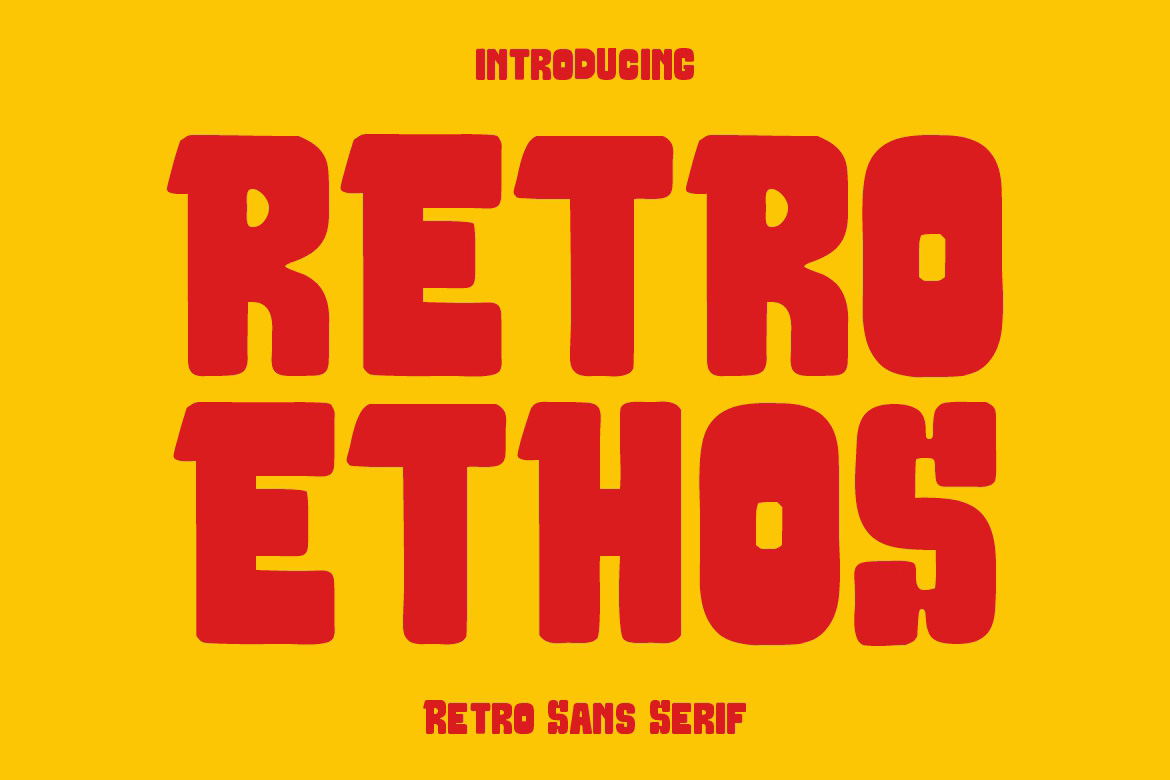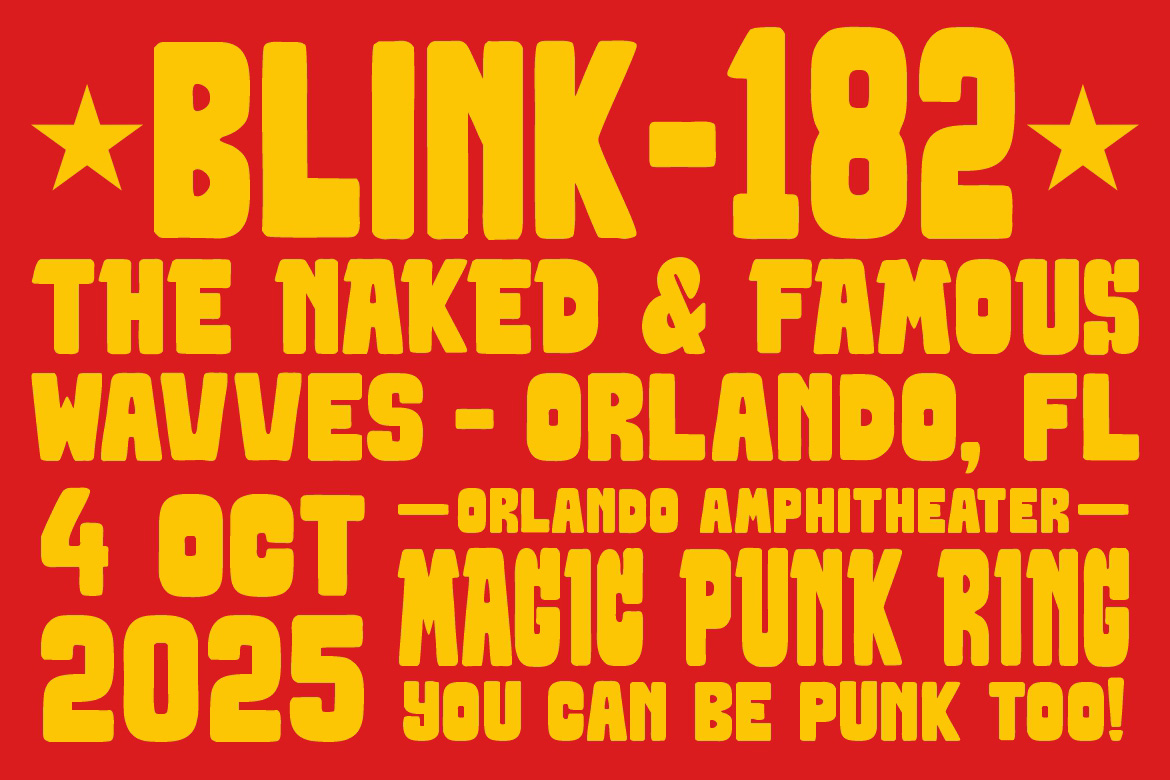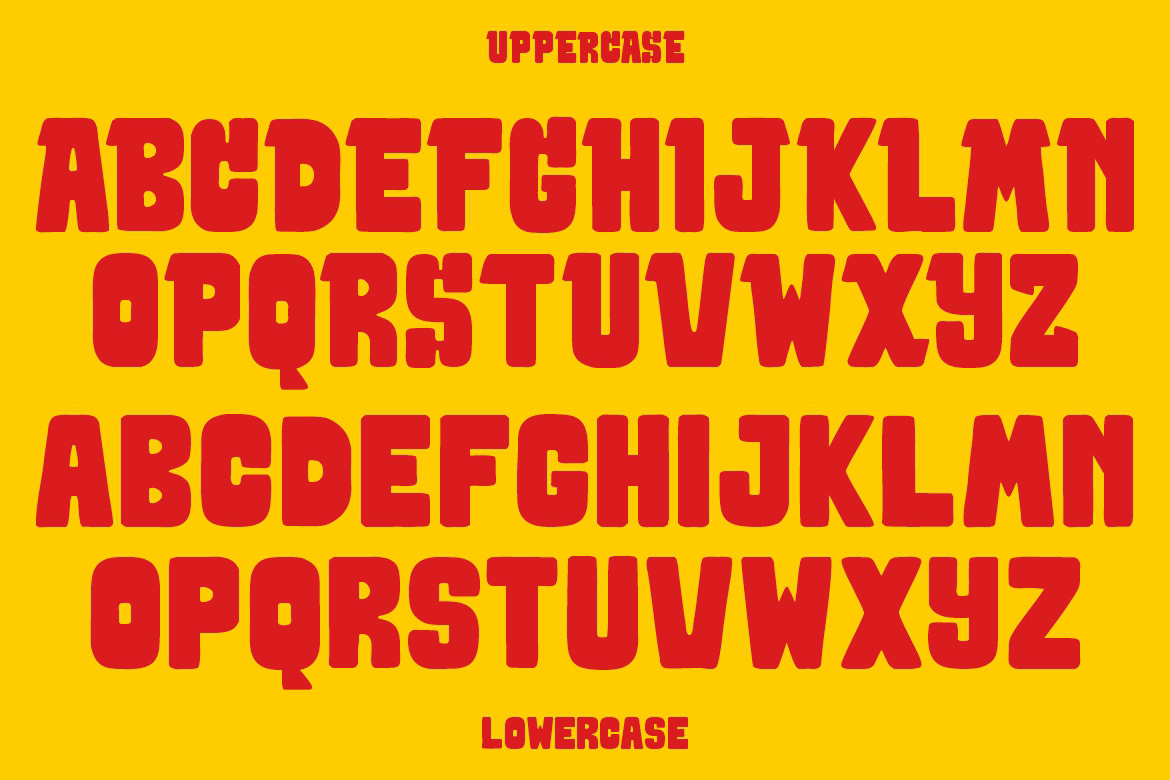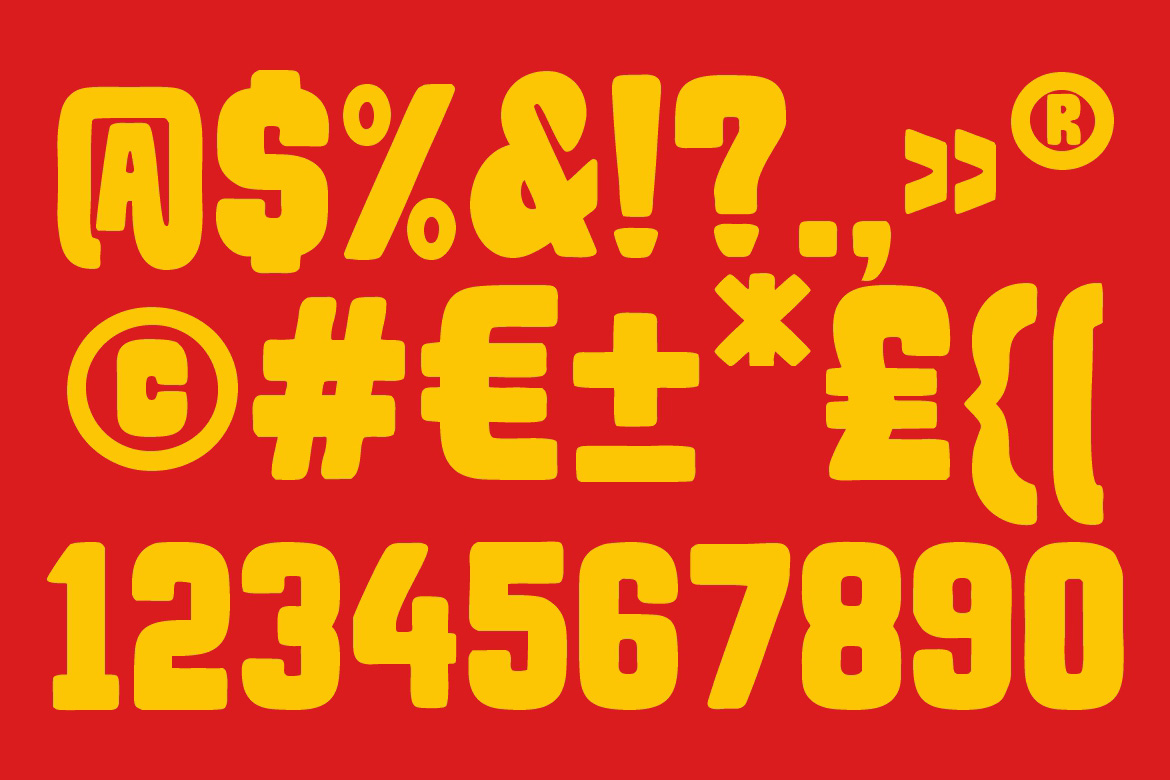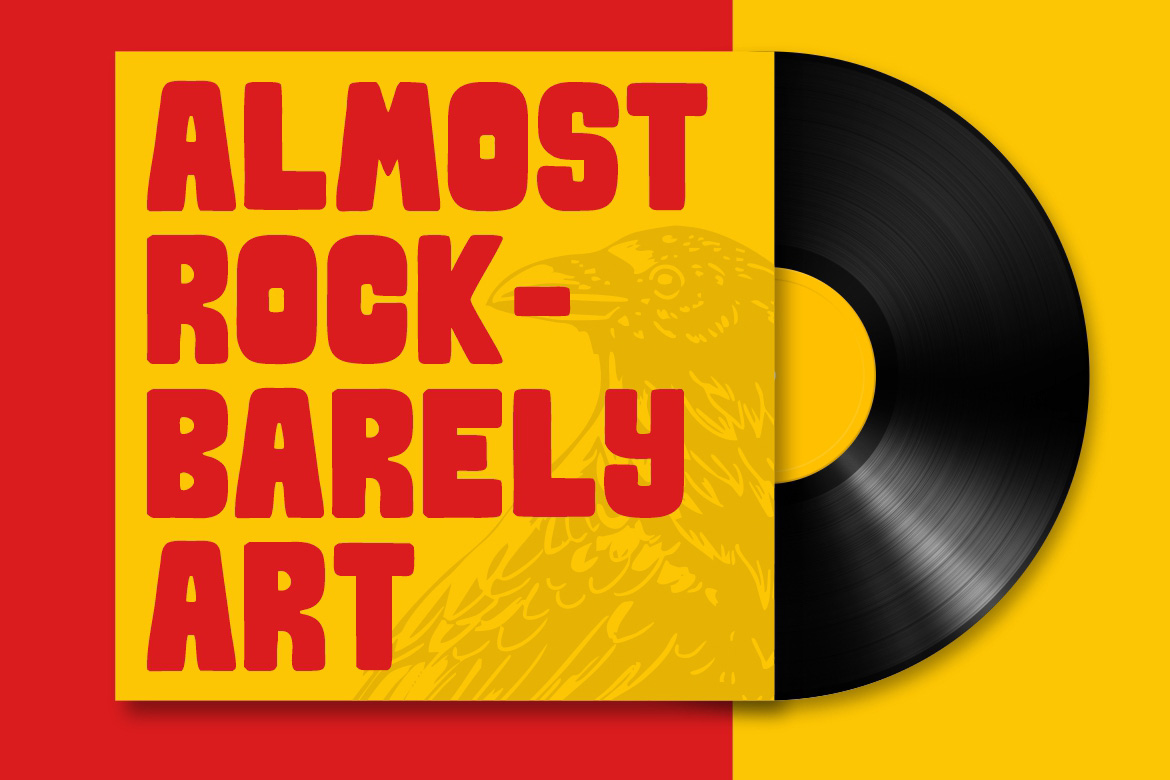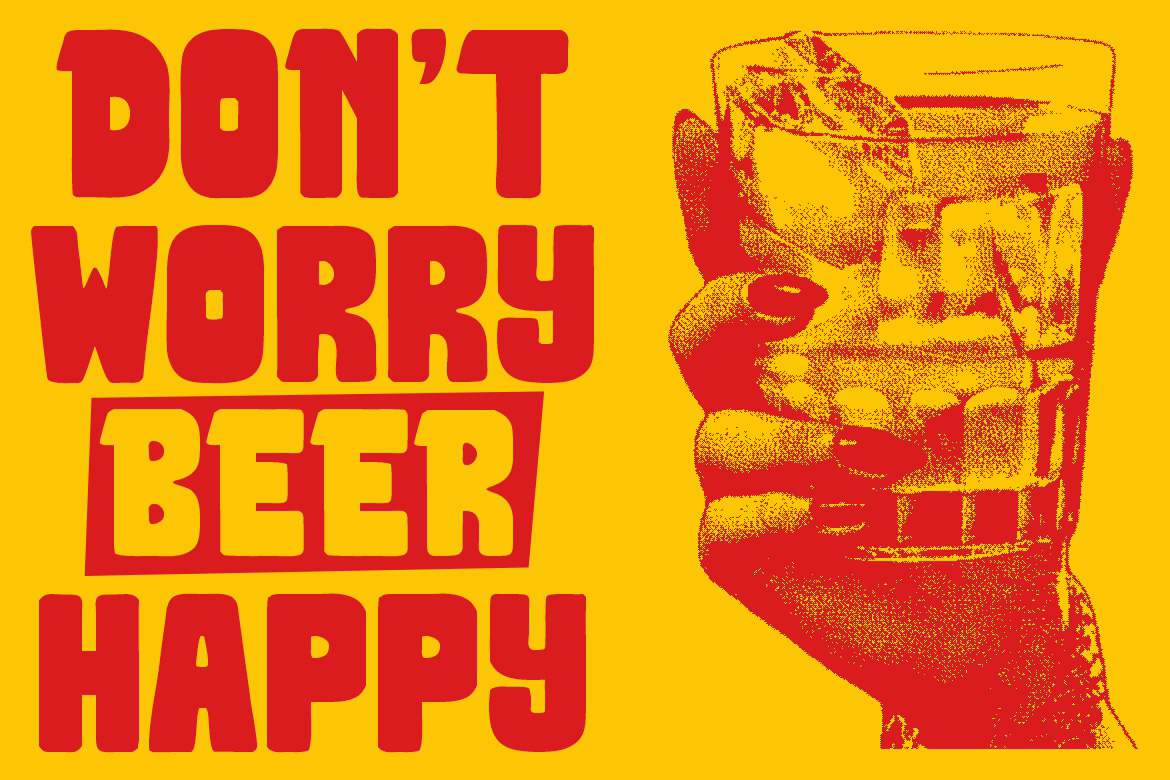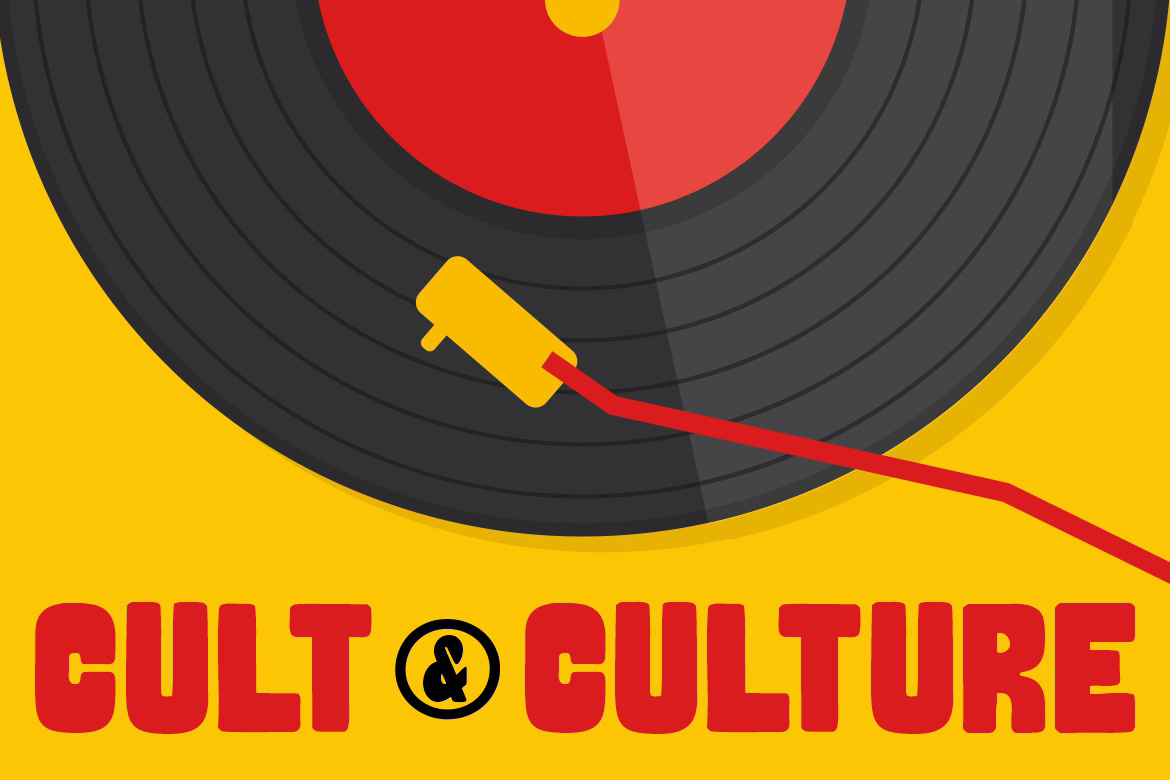
WR Retro Ethos
WR Retro Ethos is a bold hand-drawn display font with a strong retro attitude. Chunky, expressive, and full of character, ideal for eye-catching headlines, branding, and creative visuals. This font comes in OTF, TTF, and WOFF formats.
WR Retro Ethos – Retro Handdrawn Font